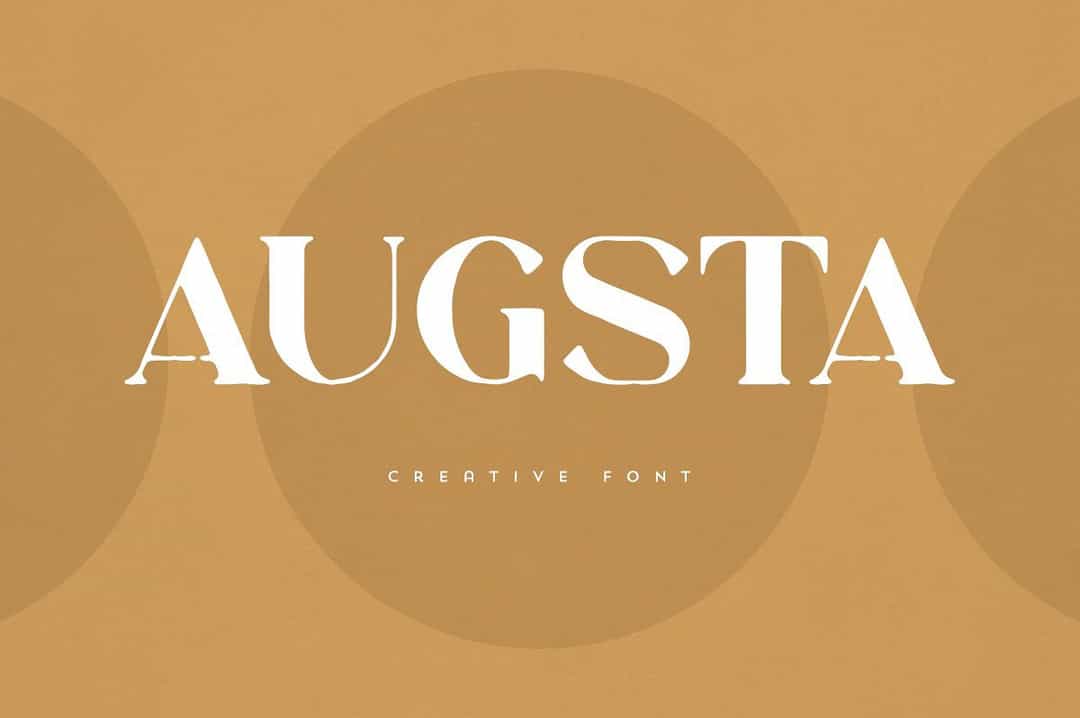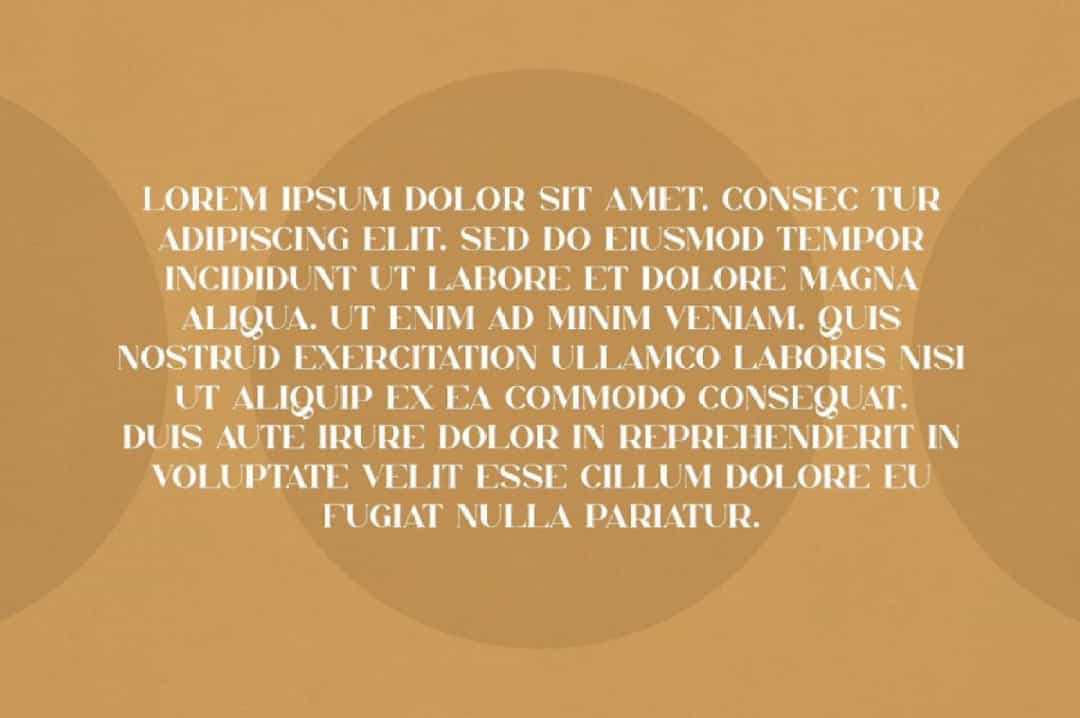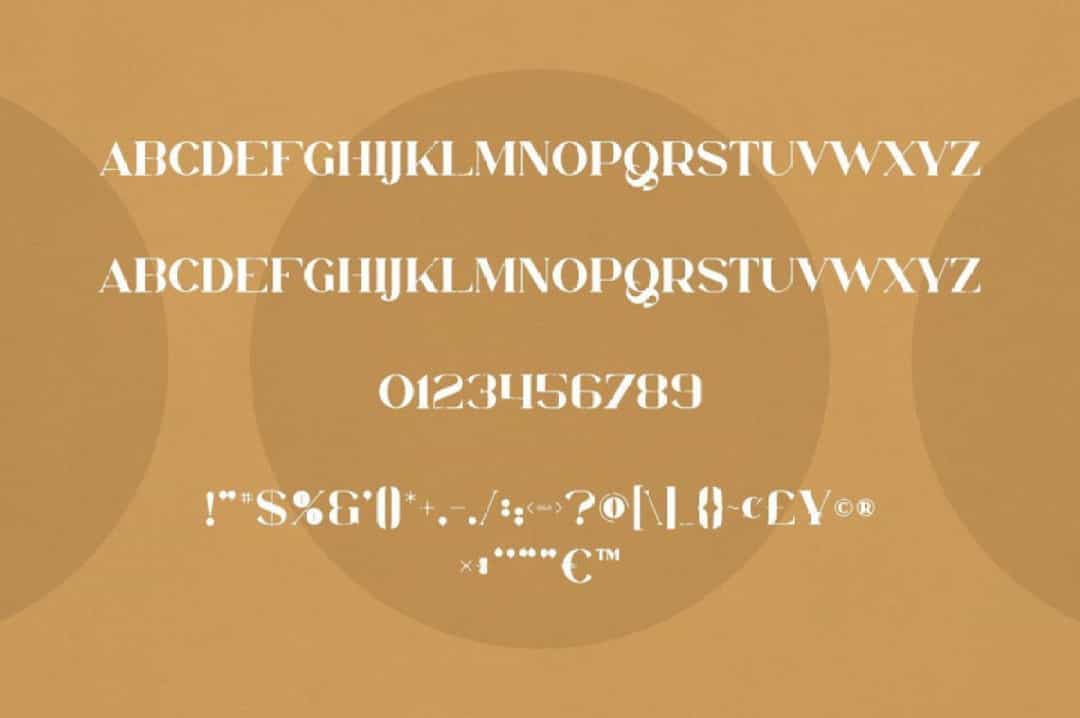
Augusta can be described as an eye-catching serif font that makes your typography truly stand out! Perfect for headlines, logos, branding or simply text – Augusta makes an excellent statement in any setting, be it homeware projects, branding designs for products and magazine headers; even as an elegant text overlay in photographs!